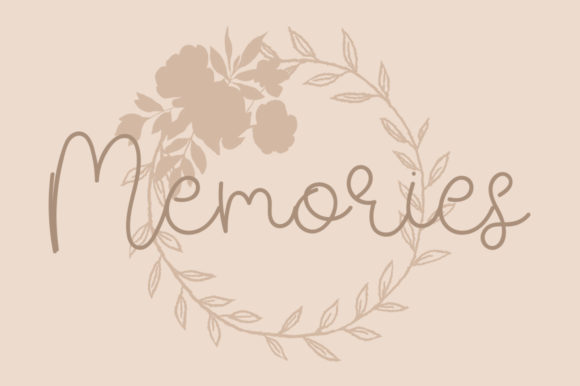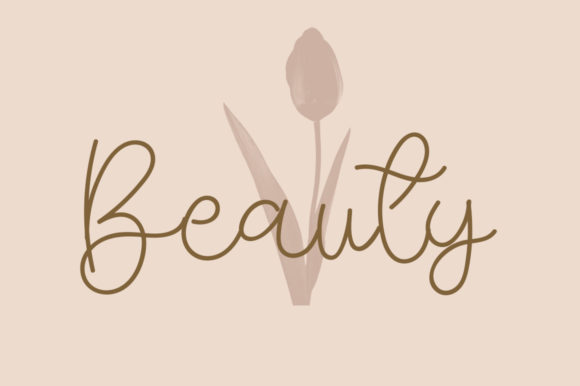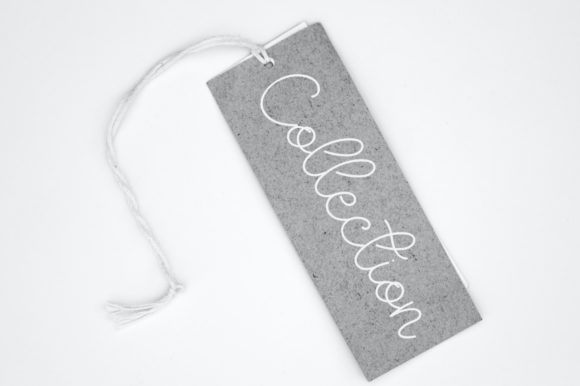
Introduction to Julia Girl Font
Imagine you’re working on a creative project and you’re struggling to find the perfect font that captures the essence of your design. You’ve scrolled through countless options, but nothing seems to stand out. That’s where the Julia Girl Font comes in – a beautiful and refined script font that’s sure to elevate your design to the next level.
With its classy, elegant, and modern look, the Julia Girl Font is a versatile design resource that can be used for a wide range of applications, from logos and branding to invitations and wedding designs. Whether you’re a seasoned designer or just starting out, this high-quality font is a valuable addition to any design toolkit.
Key Features of Julia Girl Font
- Unique and playful design, making it perfect for feminine and child-friendly creative projects
- Perfect for designers and artists working on projects requiring a whimsical and elegant touch
Honest Review: Julia Girl Font
As a designer, I’m always on the lookout for high-quality design resources that can elevate my creative projects. The Julia Girl Font caught my eye with its playful and whimsical feel, making it perfect for kid-friendly designs, editorial projects, or even branding for a children’s product.
- Perfect for design projects that require a friendly and approachable tone
However, there are some limitations to consider ⚠️:
- May not be suitable for professional or corporate branding
- Limited customization options, which may not appeal to designers looking for more flexibility
Overall, I’m impressed with the Julia Girl Font and would recommend it to designers looking for a fun and playful font for their creative projects. While it may not be suitable for all design needs, it’s a valuable resource for designers working on kid-friendly or editorial projects.